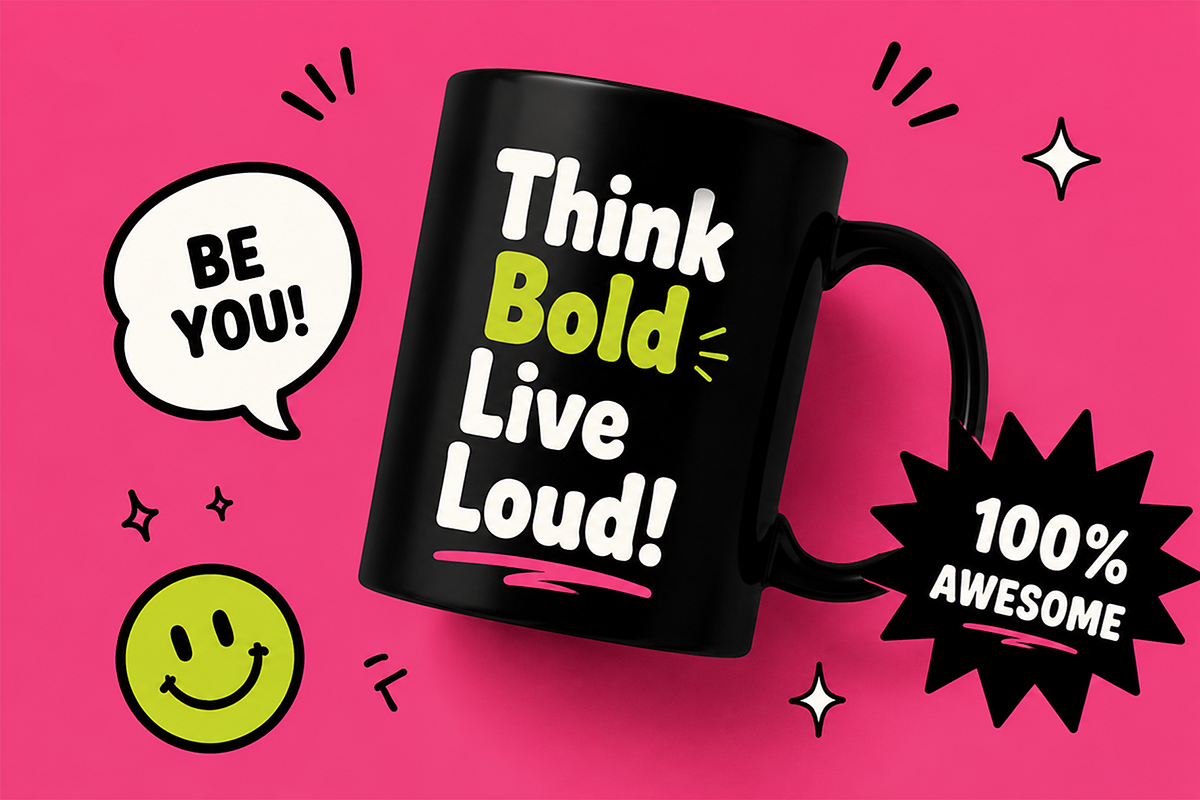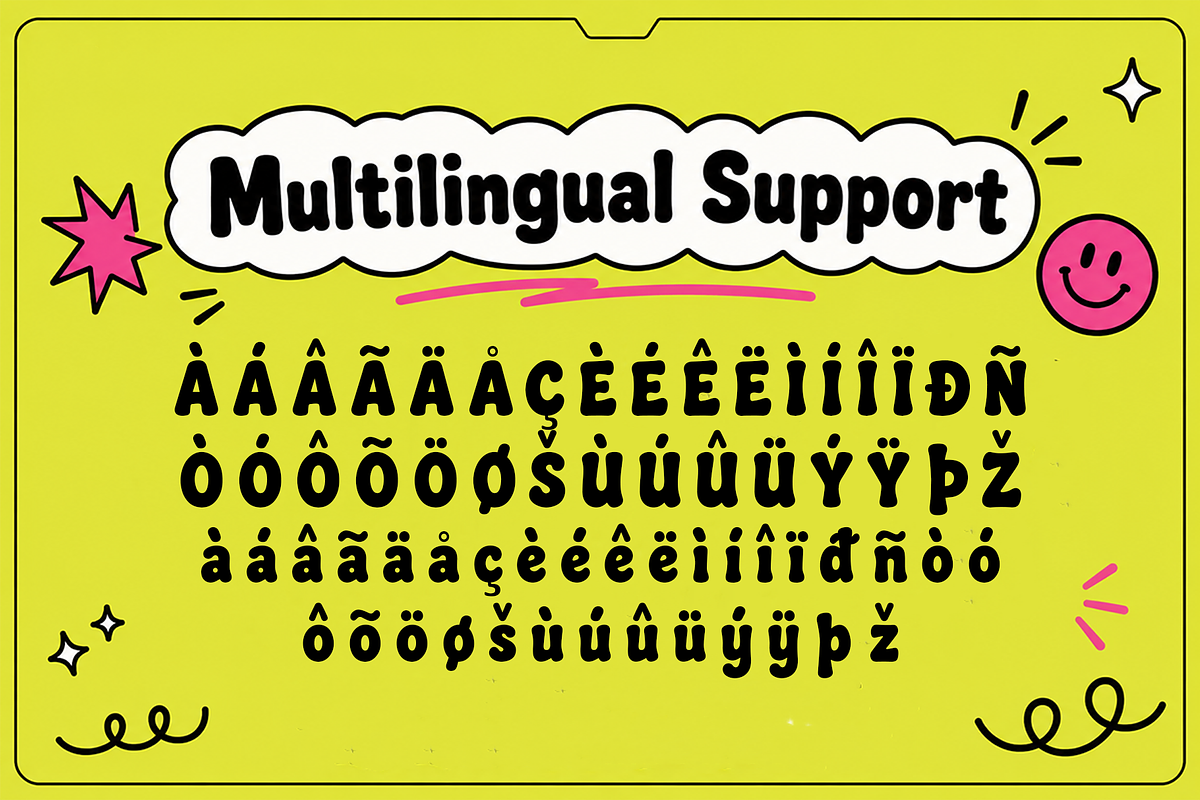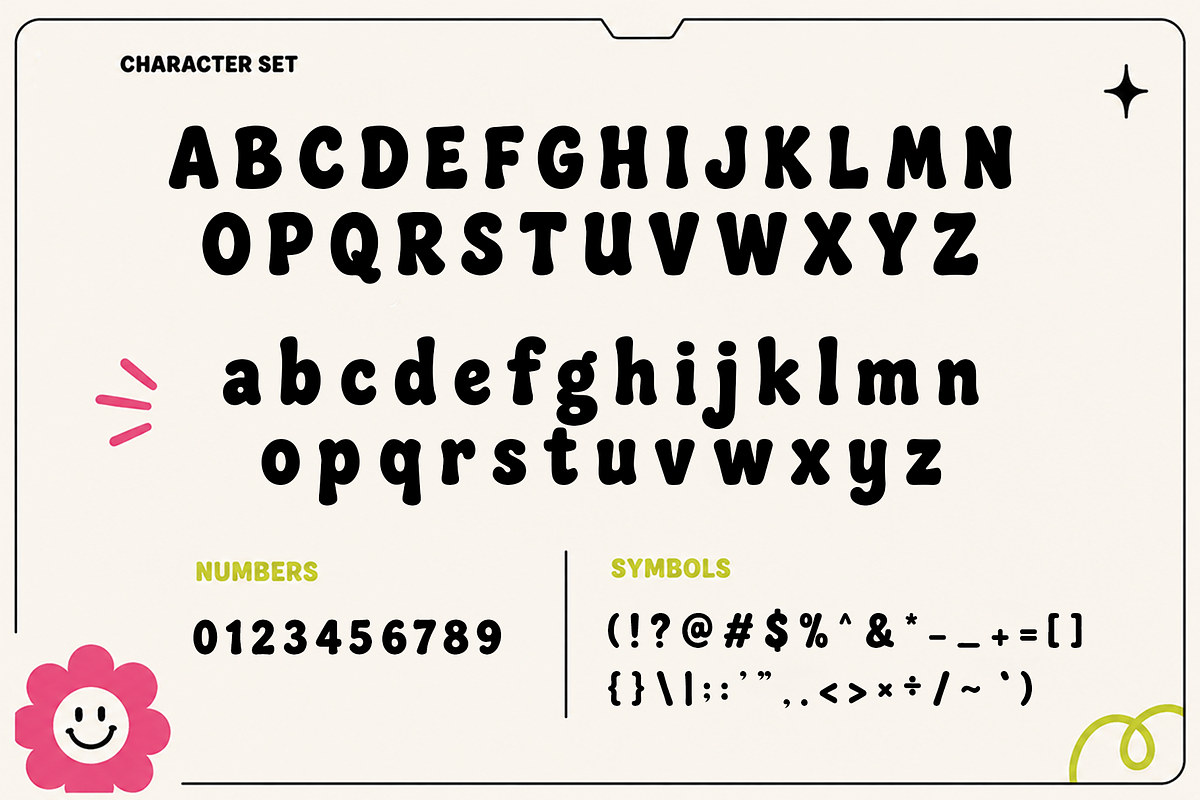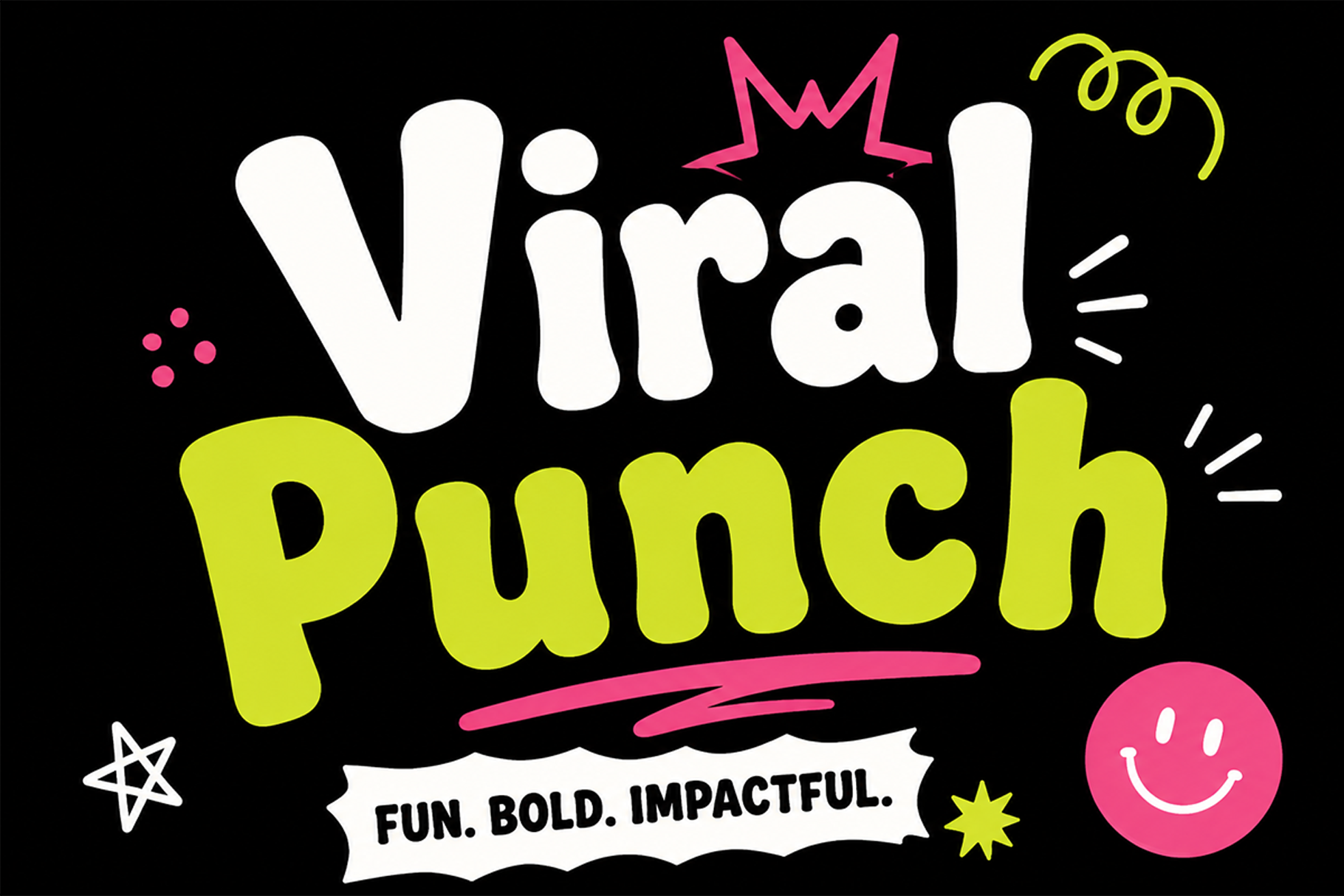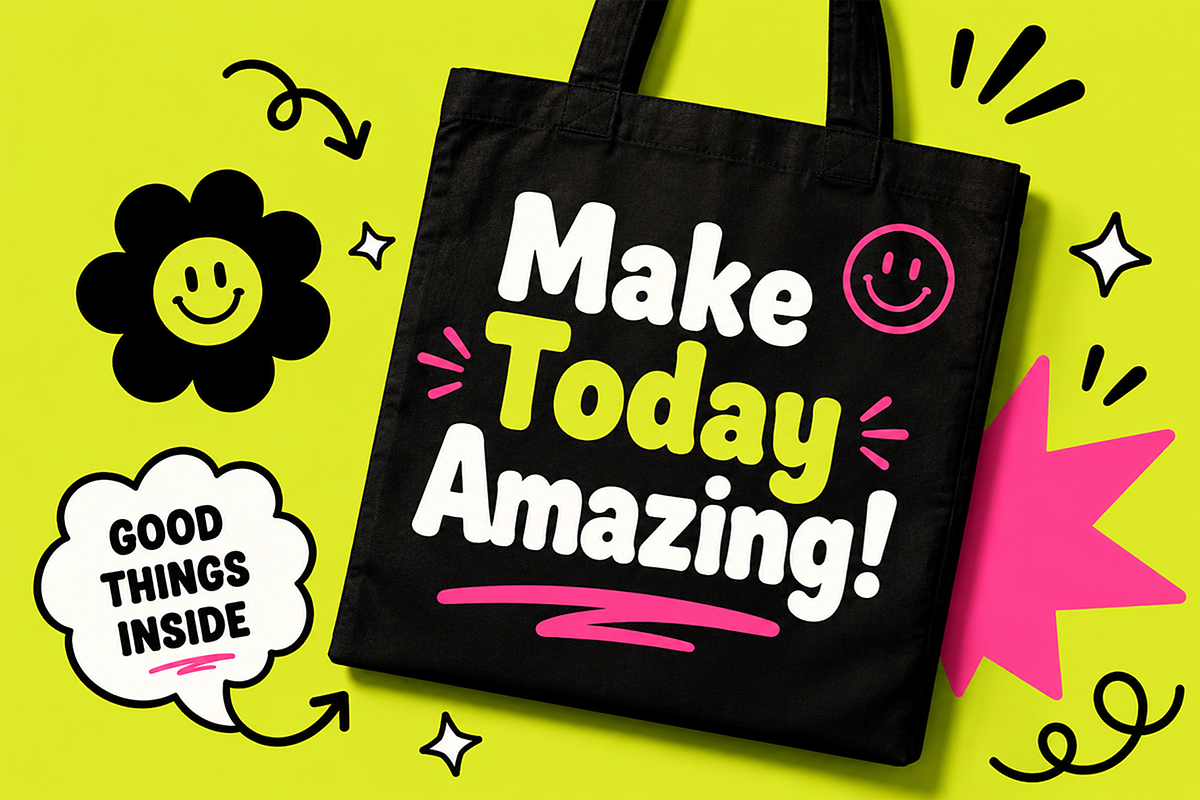
Viral Punch - Modern Display Font
Viral Punch is a modern display font designed to make a powerful statement in today's fast moving digital world. Featuring bold letterforms, energetic shapes, and a contemporary aesthetic, Viral Punch delivers the visual impact needed to stop scrolling and capture attention instantly.
Its strong display character makes headlines stand out while maintaining excellent readability. The font includes uppercase and lowercase letters, numerals, punctuation, and multilingual support, providing flexibility for a wide range of creative applications.